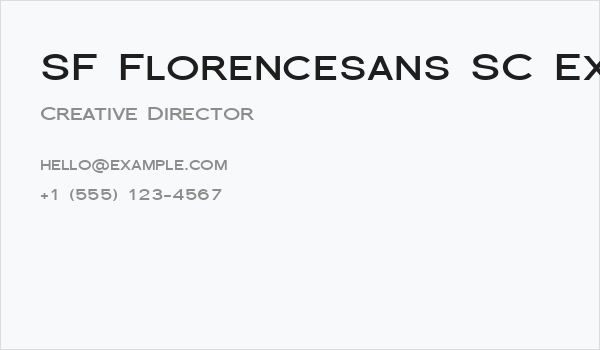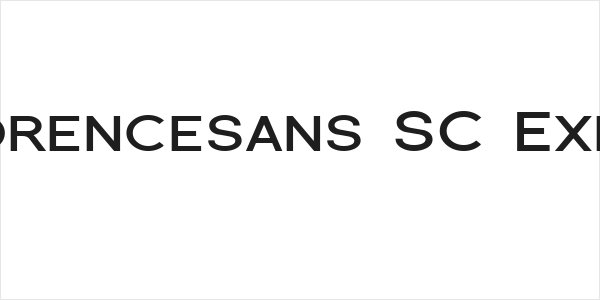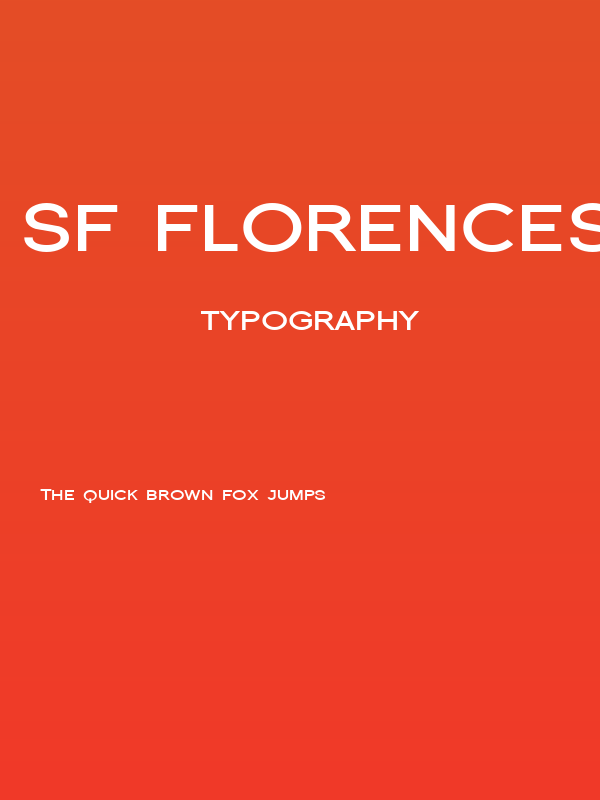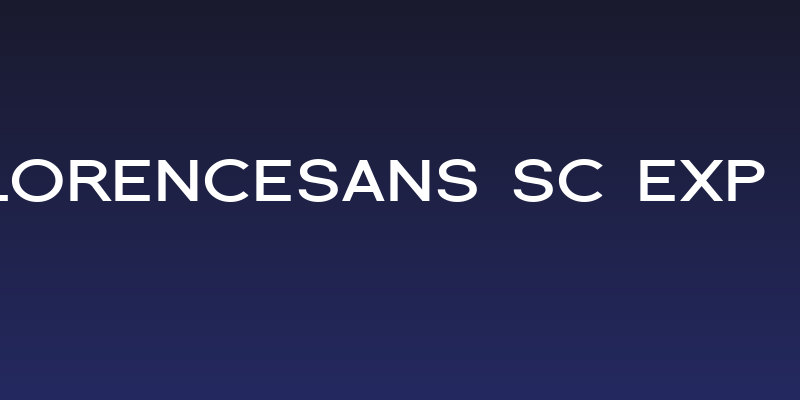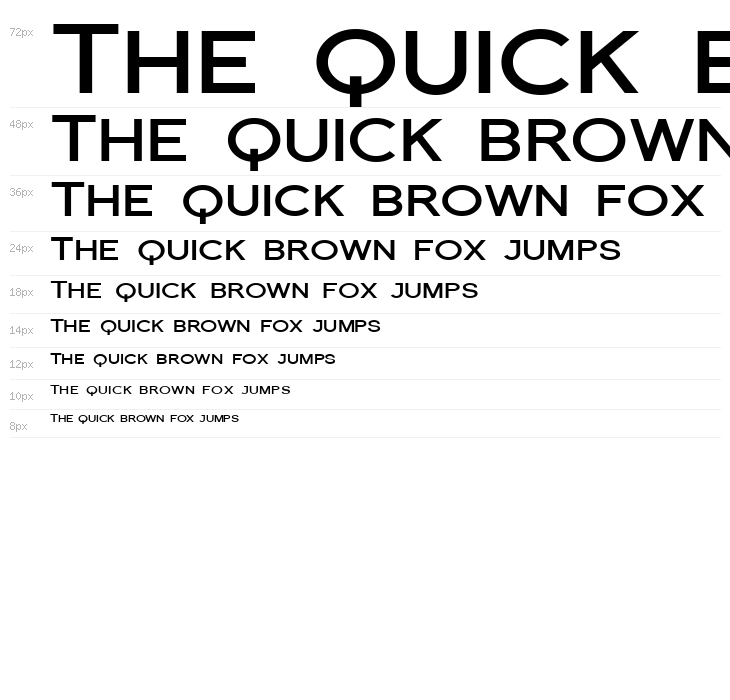
SF Florencesans SC Exp Bold Font
SF Florencesans SC Exp Bold Description
This font features a clean and modern sans-serif style with a bold weight. The characters are evenly spaced and have a consistent stroke width, providing a uniform appearance. The expanded width gives the font a spacious and open feel, making it highly legible. The design is straightforward, with no additional embellishments, which enhances its readability. The font's simplicity and clarity make it suitable for a wide range of applications, from digital to print media. Its boldness ensures that it stands out, making it ideal for headlines and titles.
| Proposed Projects | Ideal for branding, advertising, headlines, and digital media where clarity and impact are essential. |